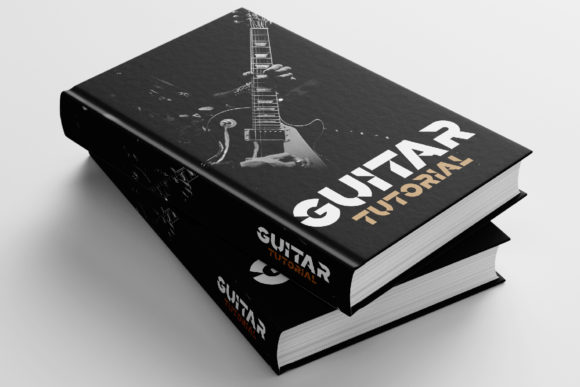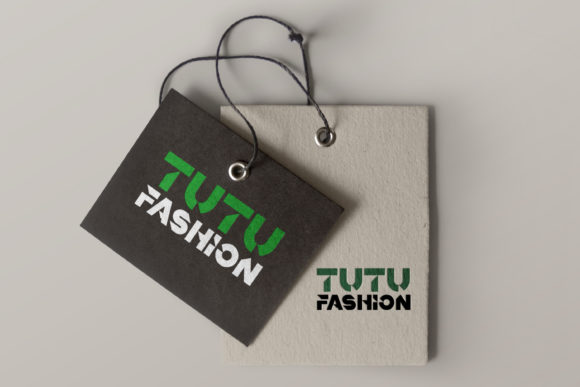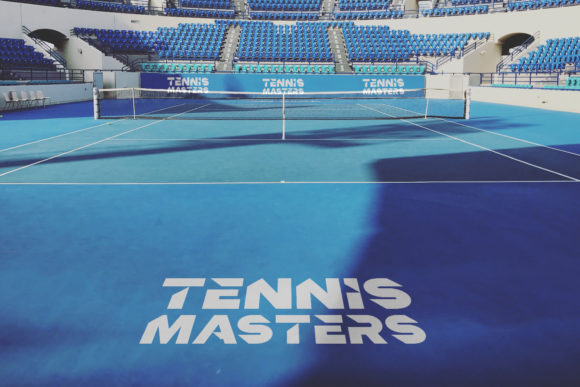
Introduction to Rumput Font
As a designer, there’s nothing quite like the thrill of landing on the perfect font for a creative project. It’s that moment when all the pieces come together, and you can see your vision take shape. For me, it was the discovery of Rumput Font – a clean and modern sans serif that has become an indispensable design resource.
With its sharp details and playful feel, Rumput Font is the perfect choice for designers looking to add a touch of sophistication to their work. Whether you’re working on a high-profile campaign or a personal project, this font is sure to elevate your design to the next level. And the best part? Rumput Font is available for free download, making it a valuable asset for designers of all levels.
Key Features of Rumput Font
- Rumput Font is a high-quality design resource, perfect for creative projects that require a unique touch.
- Rumput Font features a unique, hand-drawn design that adds a personal touch to any project.
- The font is available in a single weight, but its high quality makes it suitable for a wide range of creative projects.
- This design resource is ideal for graphic designers, digital artists, and anyone looking for a unique and creative font to enhance their projects.
Honest Review: Rumput Font
I recently came across Rumput Font while searching for a free download to enhance my design project. As a designer, I appreciate discovering new design resources that can add a personal touch to my work.
What works well for me about Rumput Font is its high quality and versatility. The font is perfect for creative projects that require a unique and elegant touch. I particularly love the transparent background option, which allows for seamless integration into my designs.
- ✨ High-quality font with a unique and elegant touch
- ✨ Versatile and suitable for a wide range of creative projects
- ✨ Transparent background option for easy integration
However, I do have some reservations about Rumput Font. The font selection is limited, and I found myself wishing for more options to choose from.
- ⚠️ Limited font selection, which may not be suitable for complex design projects
Overall, I’m impressed with Rumput Font and its potential to elevate my designs. While it may not be perfect, it’s a valuable design resource that I’d recommend to fellow designers looking for a free download.
Rumput Font
Rumput Font is commonly used for various creative projects, such as branding, marketing materials, and digital art. Its unique design and high-quality features make it an ideal choice for designers who want to add a creative touch to their projects.